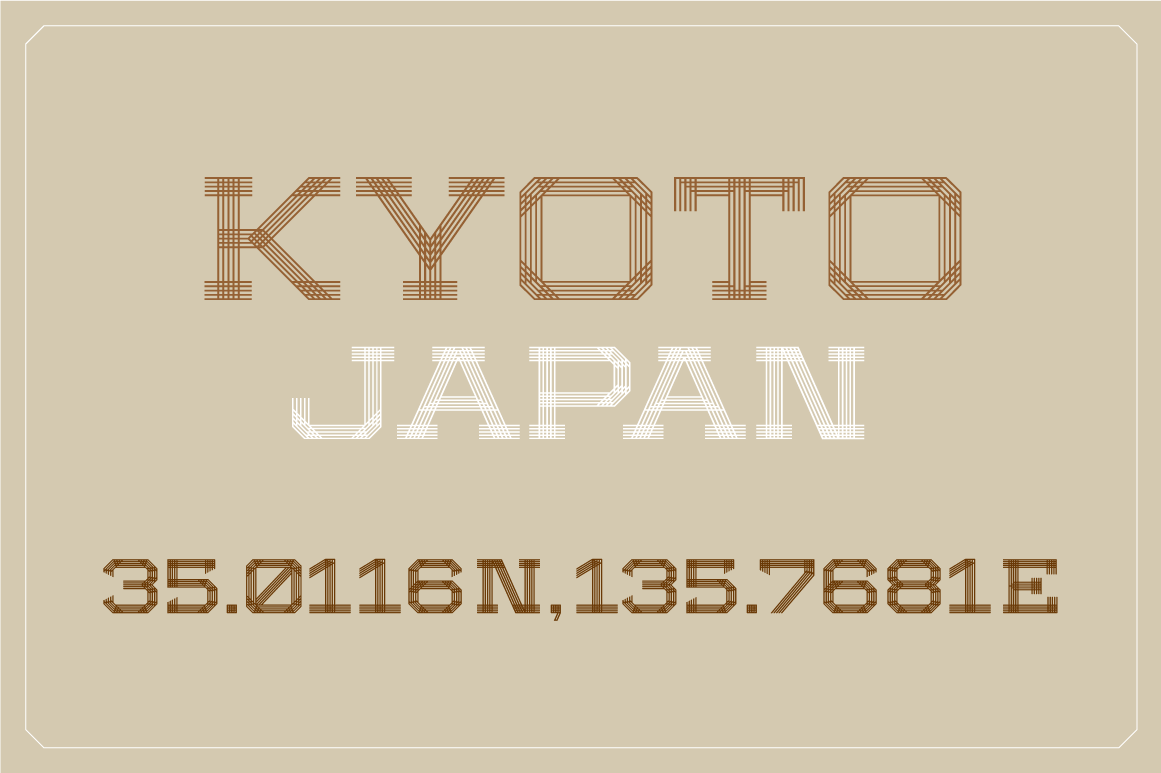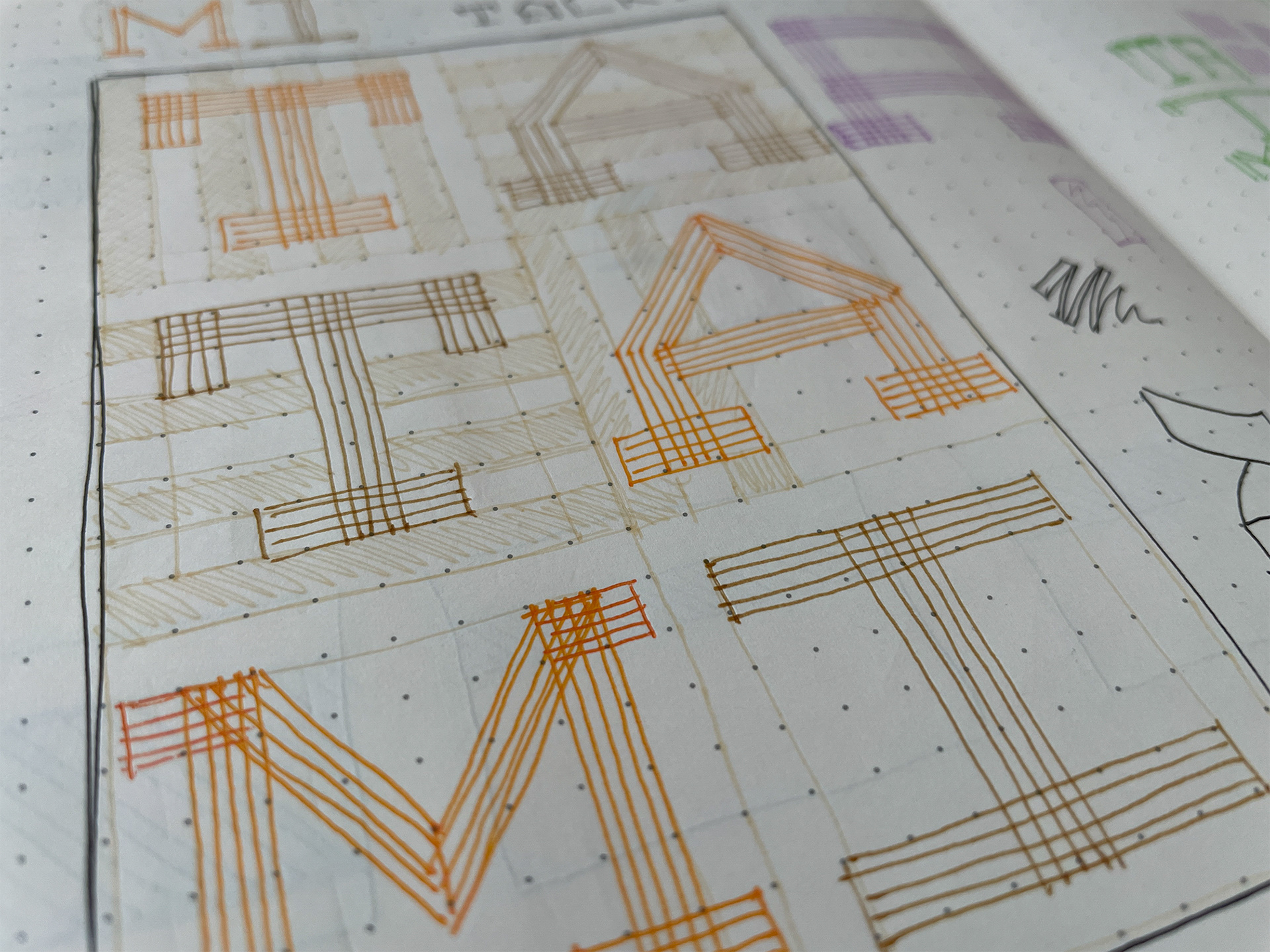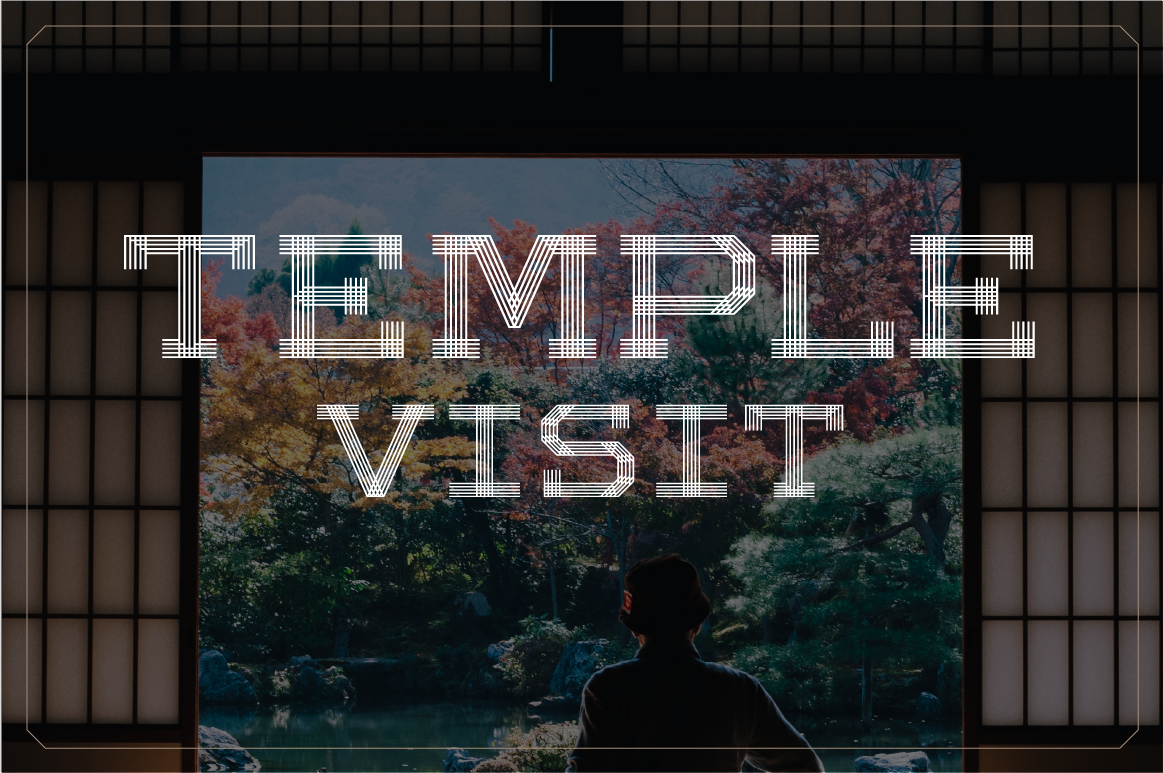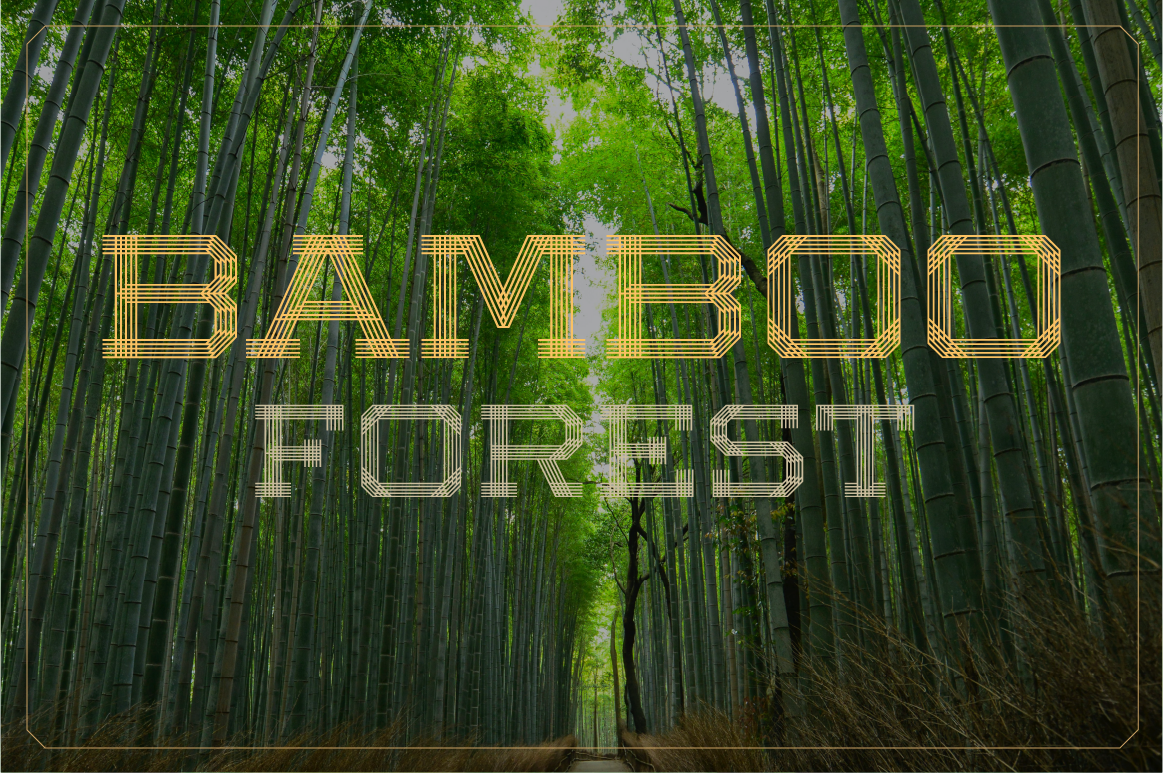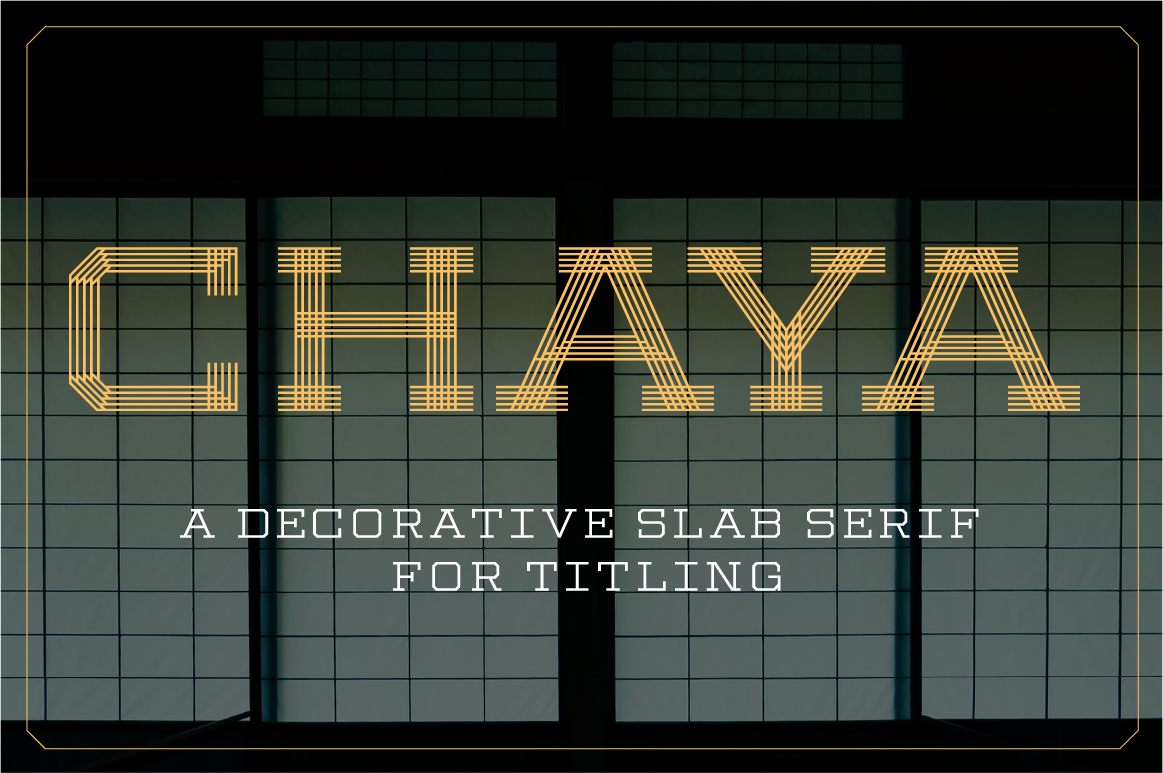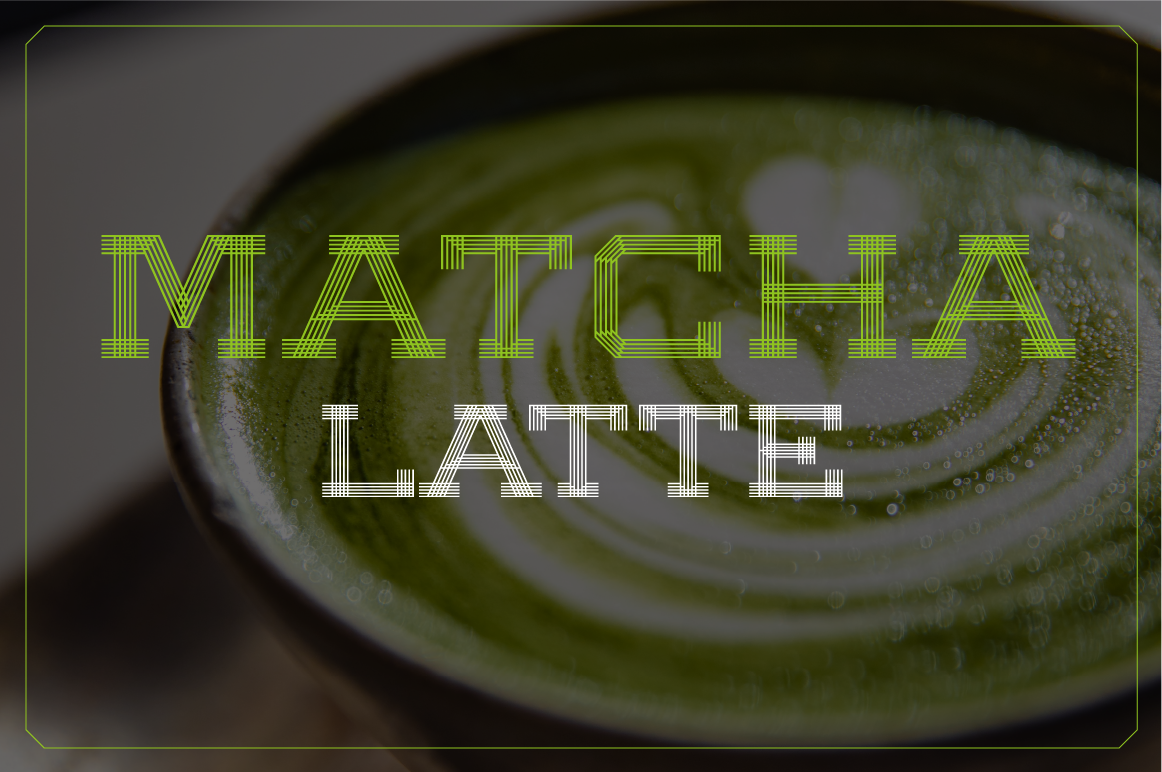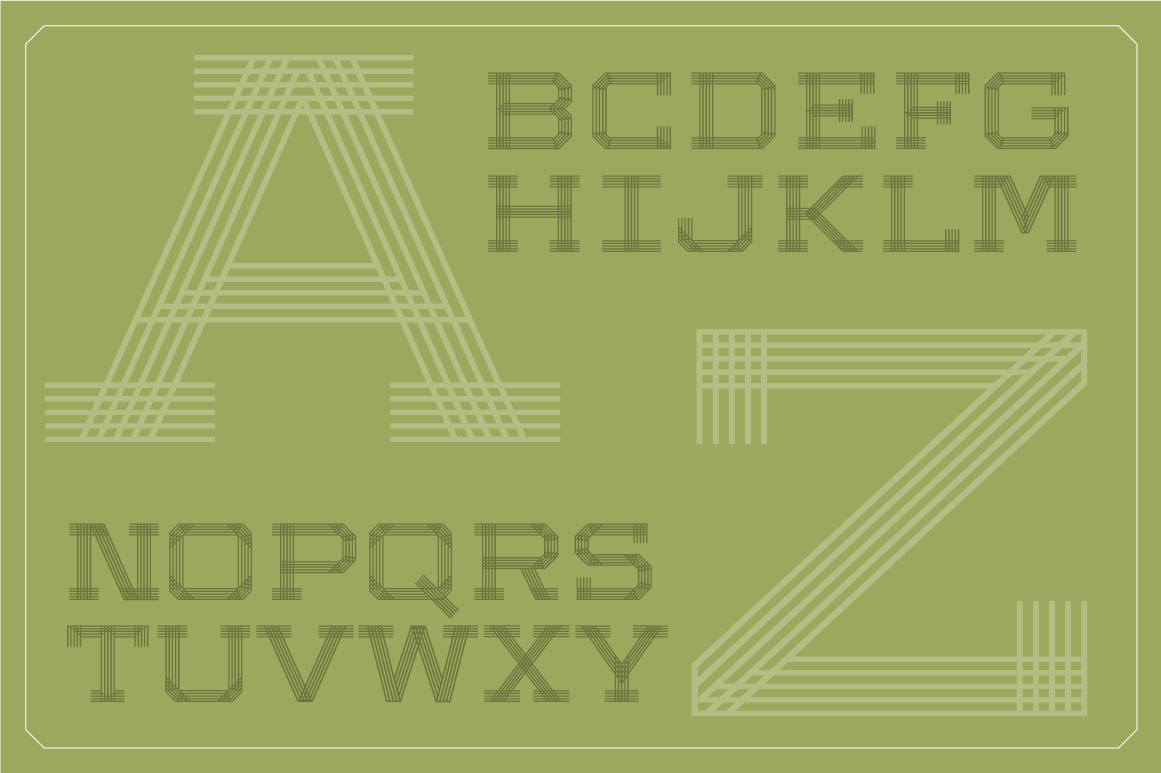
Original sketches
Inspired by the rice straw tatami mats of Japanese tea houses. Chaya has a refined yet bold look and is meant to be used for titles and at large sizes.
Original sketches